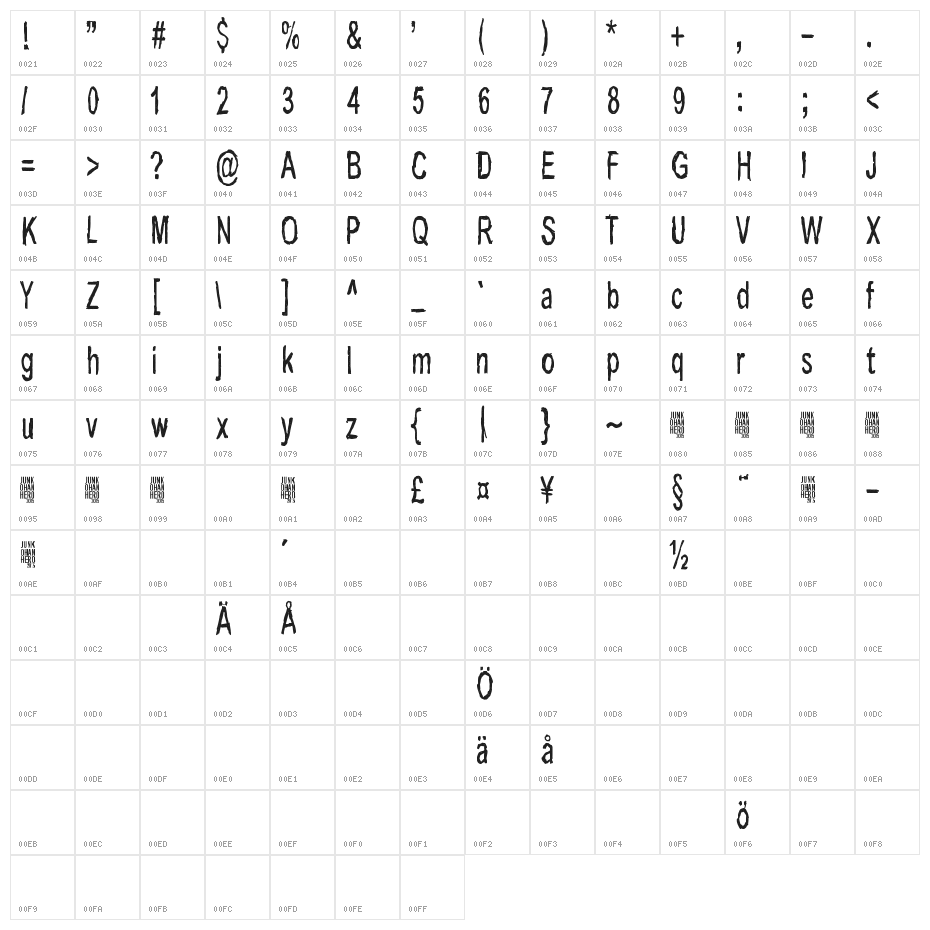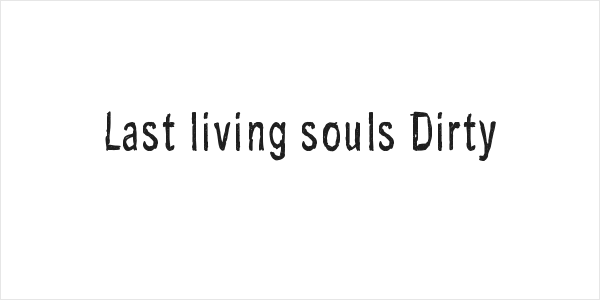
Last living souls Dirty Font
Last living souls Dirty Description
This font features a rugged, distressed appearance that gives it a raw, organic feel. The characters are unevenly inked, creating a textured look reminiscent of hand-stamped letters. The uppercase and lowercase letters maintain a consistent style, with slightly irregular edges that add to the font's charm. Numbers and special characters follow the same aesthetic, making the font versatile for various creative projects. Its unique style is perfect for designs that require a touch of grunge or a vintage, handmade vibe.
| Proposed Projects | Ideal for album covers, posters, branding for artisanal products, and any project needing a vintage or grunge aesthetic. |